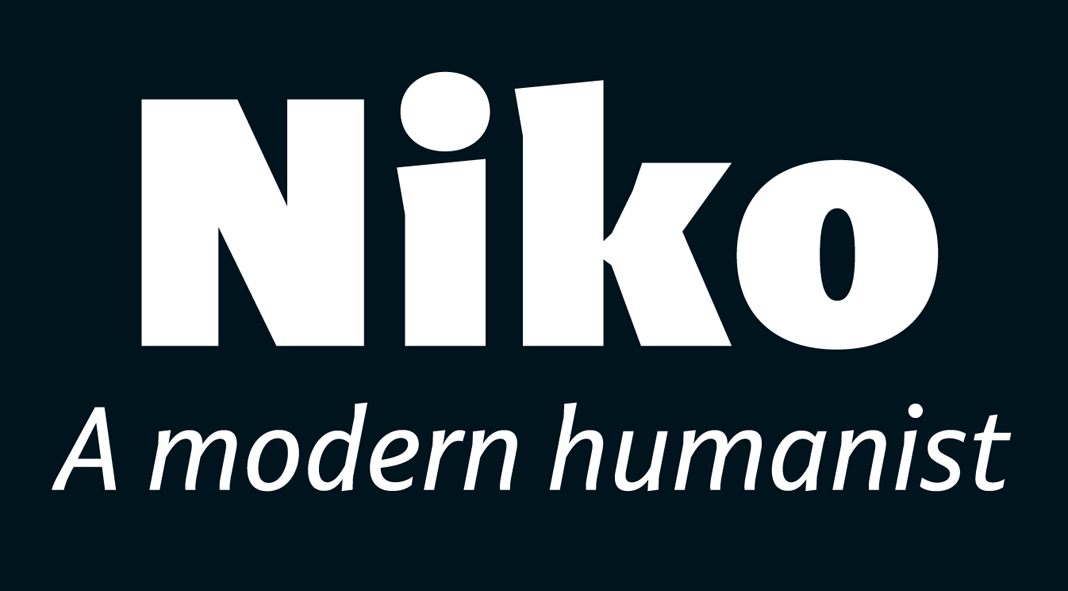
Niko, a font family based on a humanistic design by Ludwig Übele.
Designed and published by Ludwig Übele in 2019, the Niko font family was originally made as a typeface for a daily newspaper. Editors working in the publishing industry may know that fonts used for newspapers and magazines have to face some interesting design challenges in terms of paper and printing conditions as well as the requirements in different text sections and sizes such as headlines, subheadings, main body text, and captions. By creating the Niko typeface, the German designer wanted to produce a font that appears reliable and friendly while solving all of these challenges. Hence, the typeface is characterized by a relatively large x-height, which is combined with open letterforms to emphasize the sense of horizontality, leading readers’ eyes along the line. Niko’s lively look is resulting from its wedge-shaped stem heads. The carefully crafted letters are based on a humanistic design, which makes it quite comfortable to read, even in long text sections. Please read more below or click on the following link to purchase the family.
The Niko font family is equipped with 54 styles including 9 weights and 3 widths plus true Italics, which add a subtle calligraphic flair to the family. When used on the screen, the typeface brings warmth and humanity to this digital medium. This family is a great choice for multiple applications such as editorials, brochures, websites, packaging, and corporate work. To learn more, just click on the following link.